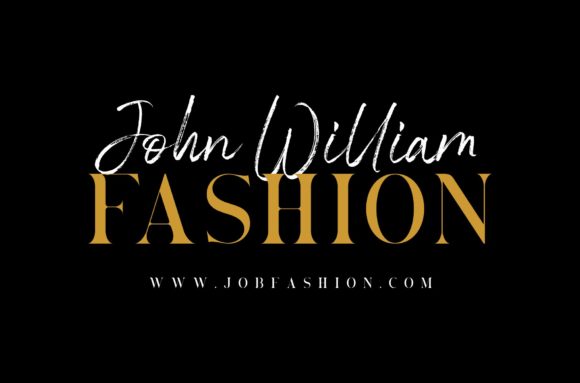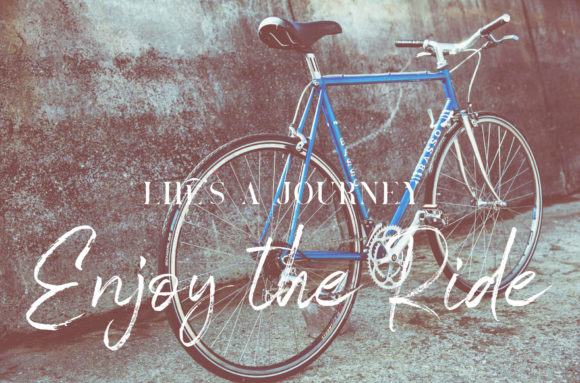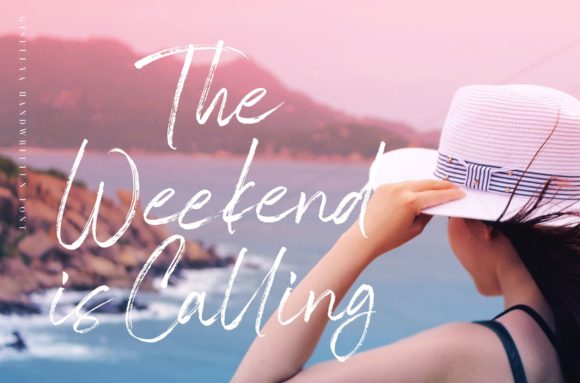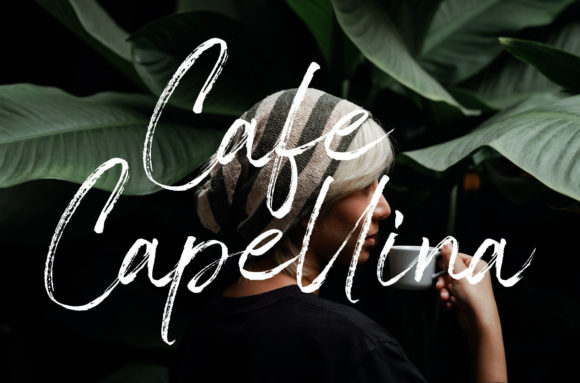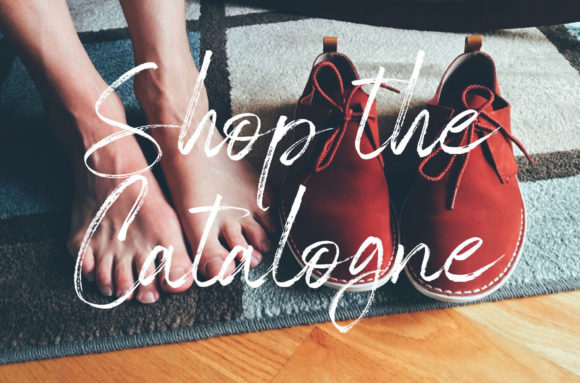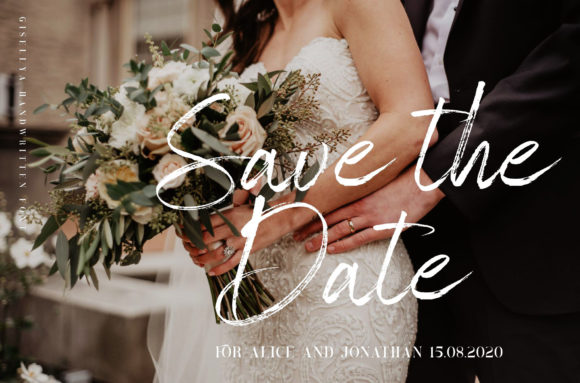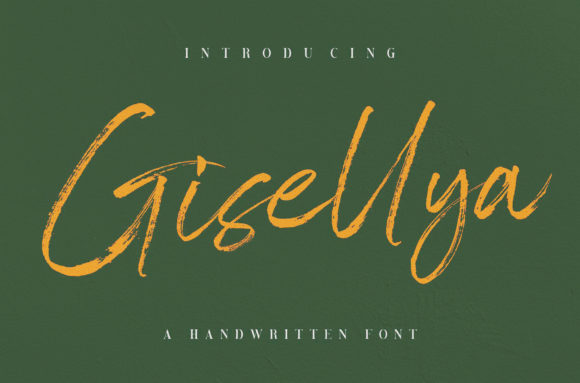
Gisellya Font: A Brushed Handwritten Font for Creative Projects
Are you a designer or crafter looking for a unique and elegant font to elevate your creative projects? Look no further than Gisellya Font, a beautiful brushed handwritten font that’s perfect for a wide range of applications. In this article, we’ll explore the features and benefits of Gisellya Font, and show you how it can be used to create stunning branding, packaging, invitations, quotes, and more.
What is Gisellya Font?
Gisellya Font is a brushed handwritten font that’s designed to add a touch of elegance and sophistication to your creative projects. With its smooth, flowing lines and delicate brushstrokes, Gisellya Font is perfect for creating a wide range of designs, from logos and branding materials to invitations, quotes, and product packaging.
Key Features of Gisellya Font
So, what makes Gisellya Font so special? Here are just a few of its key features:
- Brushed Handwritten Style: Gisellya Font has a beautiful, brushed handwritten style that’s perfect for creating elegant and sophisticated designs.
- Versatile: Gisellya Font is incredibly versatile, and can be used for a wide range of creative projects, from branding and packaging to invitations and quotes.
- Easy to Read: Despite its elegant, cursive style, Gisellya Font is easy to read, making it perfect for use in body text as well as headlines.
- High-Quality: Gisellya Font is a high-quality font that’s designed to produce crisp, clear results, even at small sizes.
Uses for Gisellya Font
So, what can you use Gisellya Font for? The possibilities are endless, but here are a few ideas to get you started:
- Branding and Logo Design: Gisellya Font is perfect for creating elegant and sophisticated branding materials, including logos, business cards, and letterheads.
- Product Packaging: Add a touch of elegance to your product packaging with Gisellya Font, perfect for labels, tags, and other packaging materials.
- Invitations and Stationery: Gisellya Font is perfect for creating beautiful invitations, wedding stationery, and other special occasion materials.
- Quotes and Posters: Use Gisellya Font to create stunning quotes and posters that are sure to grab attention.
- T-Shirts and Merchandise: Gisellya Font is perfect for creating custom t-shirts, mugs, and other merchandise.
Why Choose Gisellya Font?
So, why choose Gisellya Font over other fonts? Here are just a few reasons:
- Unique and Elegant: Gisellya Font has a unique and elegant style that’s sure to set your designs apart.
- High-Quality: Gisellya Font is a high-quality font that’s designed to produce crisp, clear results.
- Versatile: Gisellya Font is incredibly versatile, and can be used for a wide range of creative projects.
In conclusion, Gisellya Font is a beautiful brushed handwritten font that’s perfect for designers and crafters looking to add a touch of elegance and sophistication to their creative projects. With its smooth, flowing lines and delicate brushstrokes, Gisellya Font is sure to elevate your designs and set them apart from the crowd. Whether you’re creating branding materials, product packaging, invitations, quotes, or merchandise, Gisellya Font is the perfect choice.